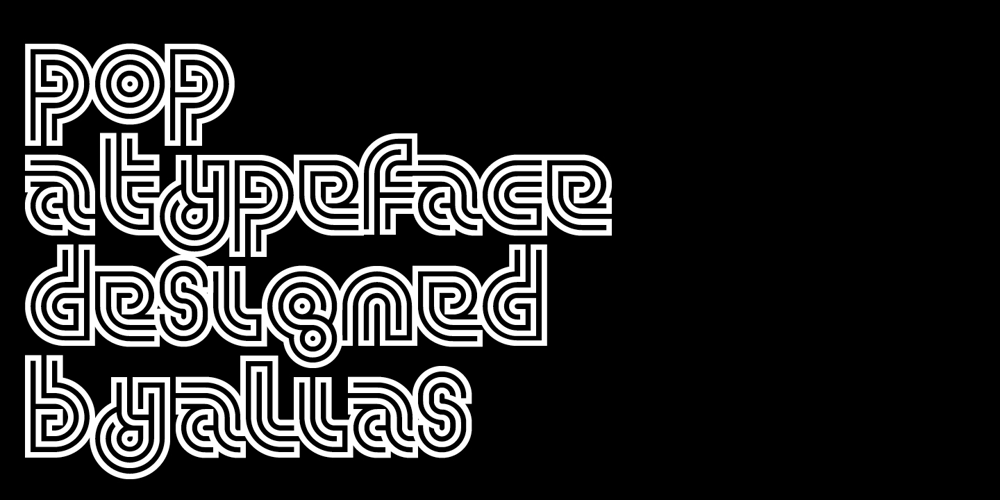
Pop Font Family was designed by Gareth Hague and published by Alias Collection. Pop contains 2 styles and family package options. A decorative, maze-like multi-line typeface in two weights. Lower case is narrow, upper case is wide, the two can be mixed to give a variety of bold, dynamic effects.